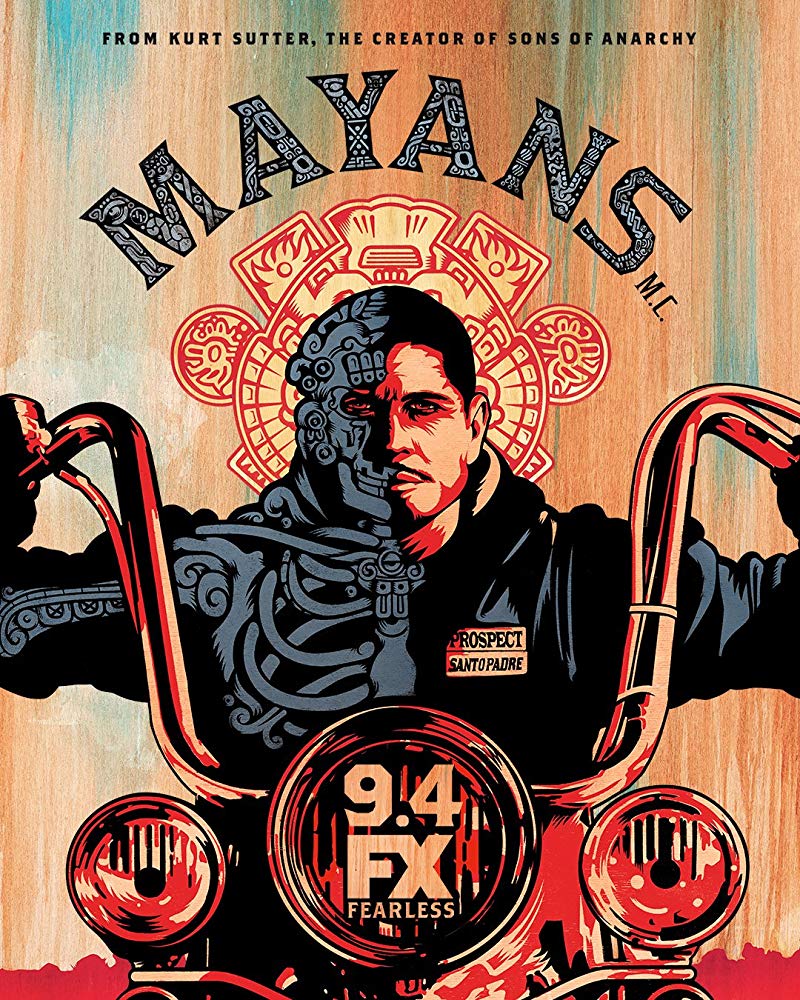
Mayans M.C. Font
The ''Mayans'' title on the poster above likely utilized the Kirsty Regular font designed by Ray Larabie. However, the title in the TV series uses a different serif font that resembles Latin CT or Indubitably NF. You can download the Kirsty font for free from the Fonts Used Section.